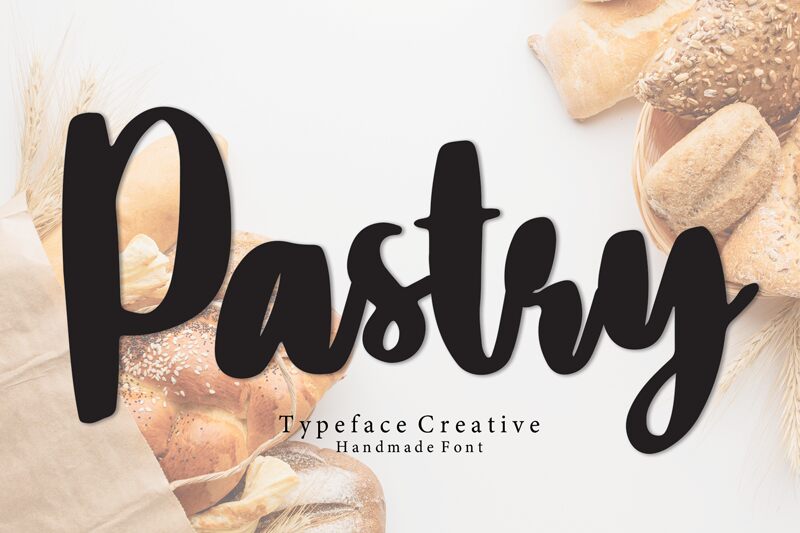
Pastry
Pastry, a beautiful creation by Scratchones, is a bold and expressive handwritten font. Its smooth brush strokes and marker-like feel make it perfect for projects that require a touch of whimsy and personality.
From bakery logos to children's book titles, Pastry adds a delightful charm to any design. Its bold weight brings attention to headlines and helps create eye-catching signage. Whether you're working on invitations or branding for a quirky cafe, Pastry is the go-to typeface that will leave your audience craving more.